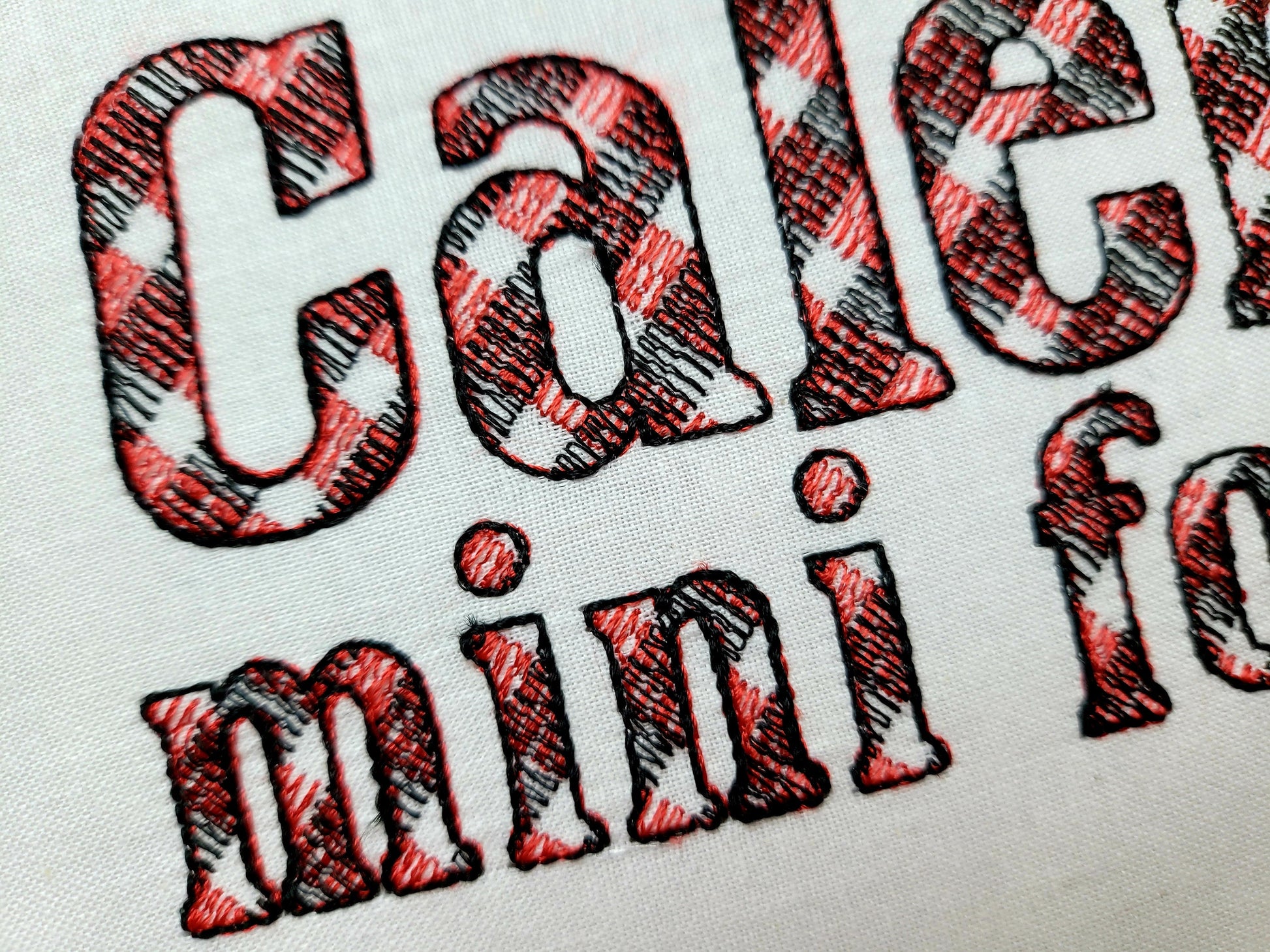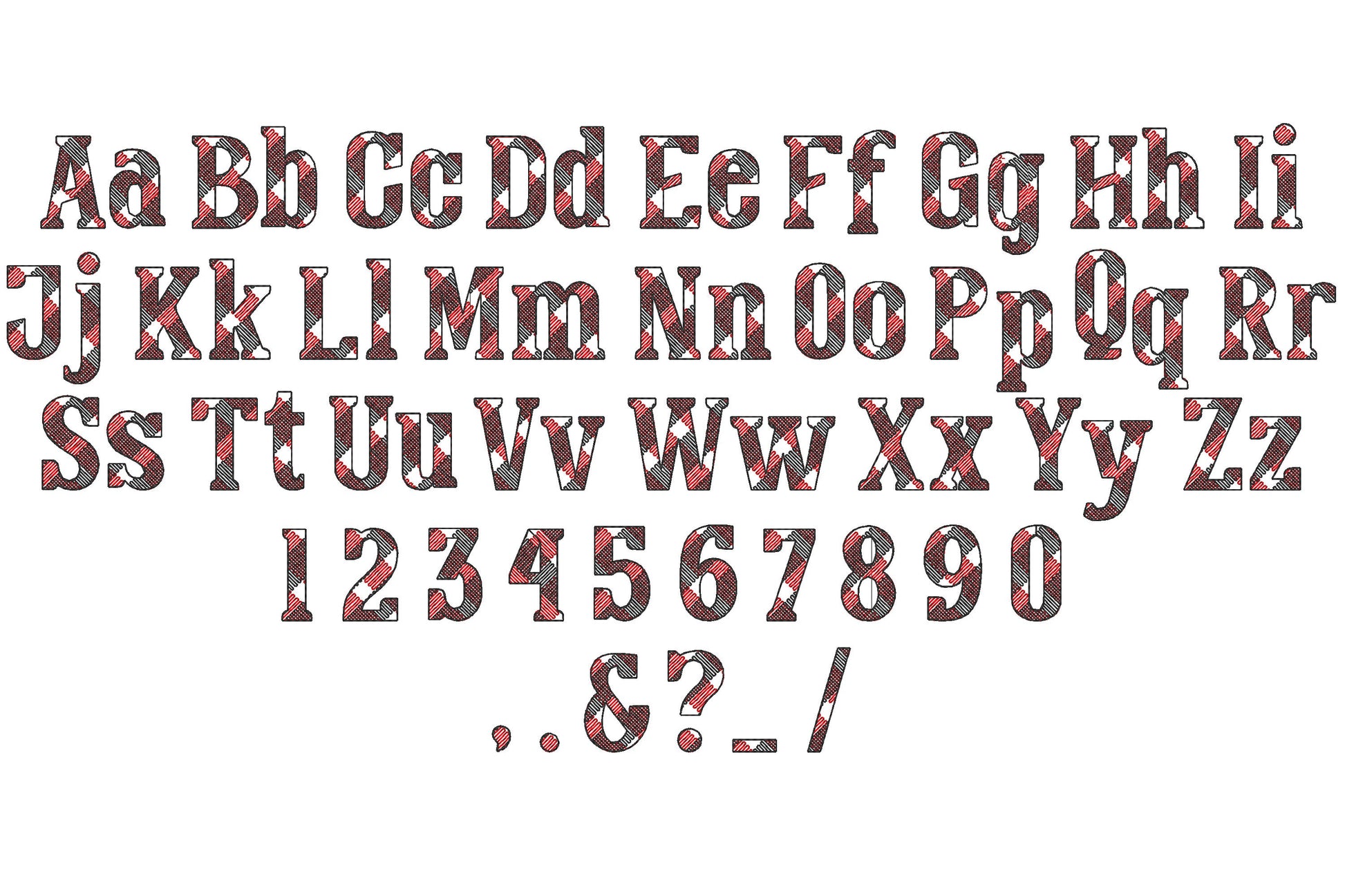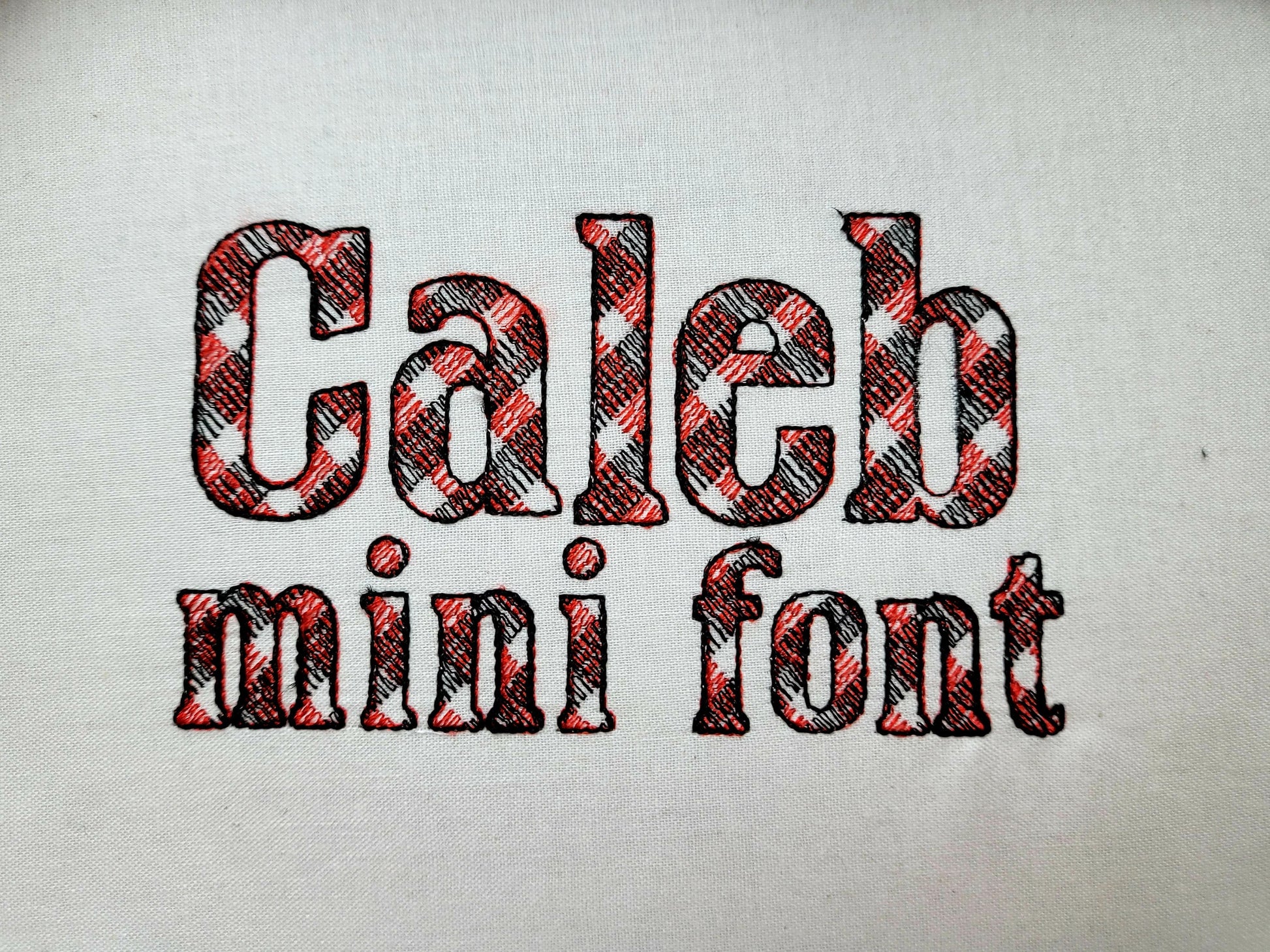
Mini Tartan Gingham Font
Or click to open the linkA mini buffalo plaid font with a light sketch outline that looks like lace, for small names and words on fall and Christmas projects.
A quick stitch: the gingham lines are part of the embroidery and the fabric shows through. Uppercase and lowercase letters, numbers and punctuation in seven sizes: 0.8, 1, 1.2, 1.5, 1.7, 2 and 2.5 inches.
- Mini buffalo plaid sketch font
- Uppercase, lowercase, numbers 0-9, punctuation
- 7 sizes, 0.8 to 2.5 in